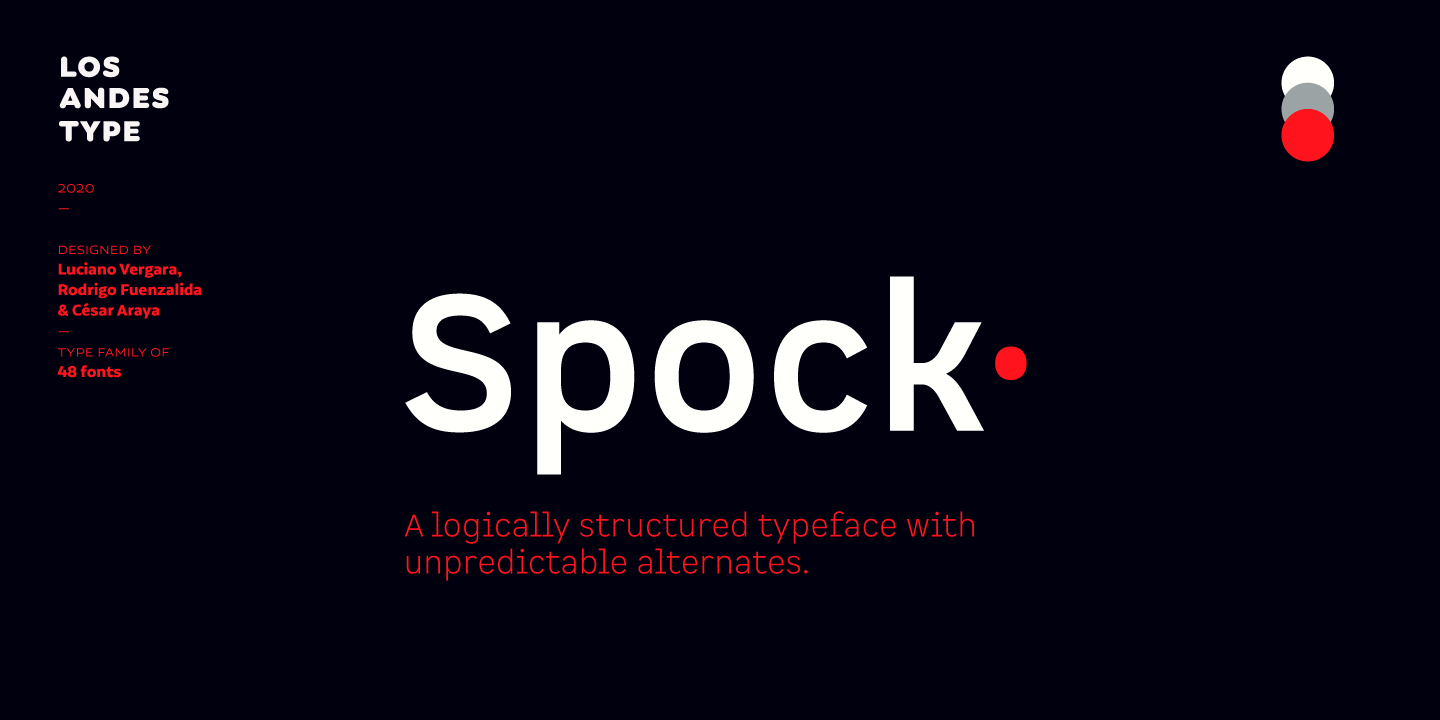
Spock Font is perfect for science fiction gaming interfaces, futuristic technology branding, logical system documentation, space exploration materials, scientific research publications, rational decision-making tools, analytical software interfaces, systematic methodology guides, precise engineering documentation, and logical problem-solving applications.
What makes Spock Font exciting is its logical precision and analytical sophistication that embodies the essence of rational thinking with systematic clarity and intellectual rigor. This distinguished typeface captures the spirit of logical analysis with its precise character forms and reasoning-inspired proportions that evoke computer terminals displaying complex calculations, scientific instruments measuring with perfect accuracy, and the kind of systematic thinking that approaches every problem with methodical precision. The font's logical character creates an immediate impression of intellectual authority and the kind of analytical clarity that defines scientific excellence.
Spock Font family includes regular weight with logically crafted character designs featuring analytical proportions and systematic styling. The typeface maintains exceptional readability while showcasing its distinctive rational personality through precisely designed letterforms that reflect the methodical thinking and systematic approach that characterizes excellent scientific analysis.
Science professionals consistently select Spock Font Free Download for projects requiring authentic analytical appeal and logical credibility. This remarkable typeface brings the power of rational thinking to brand communications, combining systematic aesthetics with intellectual precision to create memorable analytical experiences. The logically designed characters ensure systematic positioning across all applications, making it essential for research institutions, technology companies, and any organization seeking to communicate the transformative power of logical analysis and the intellectual precision that comes from embracing systematic rational thinking through Spock Font Free Download.